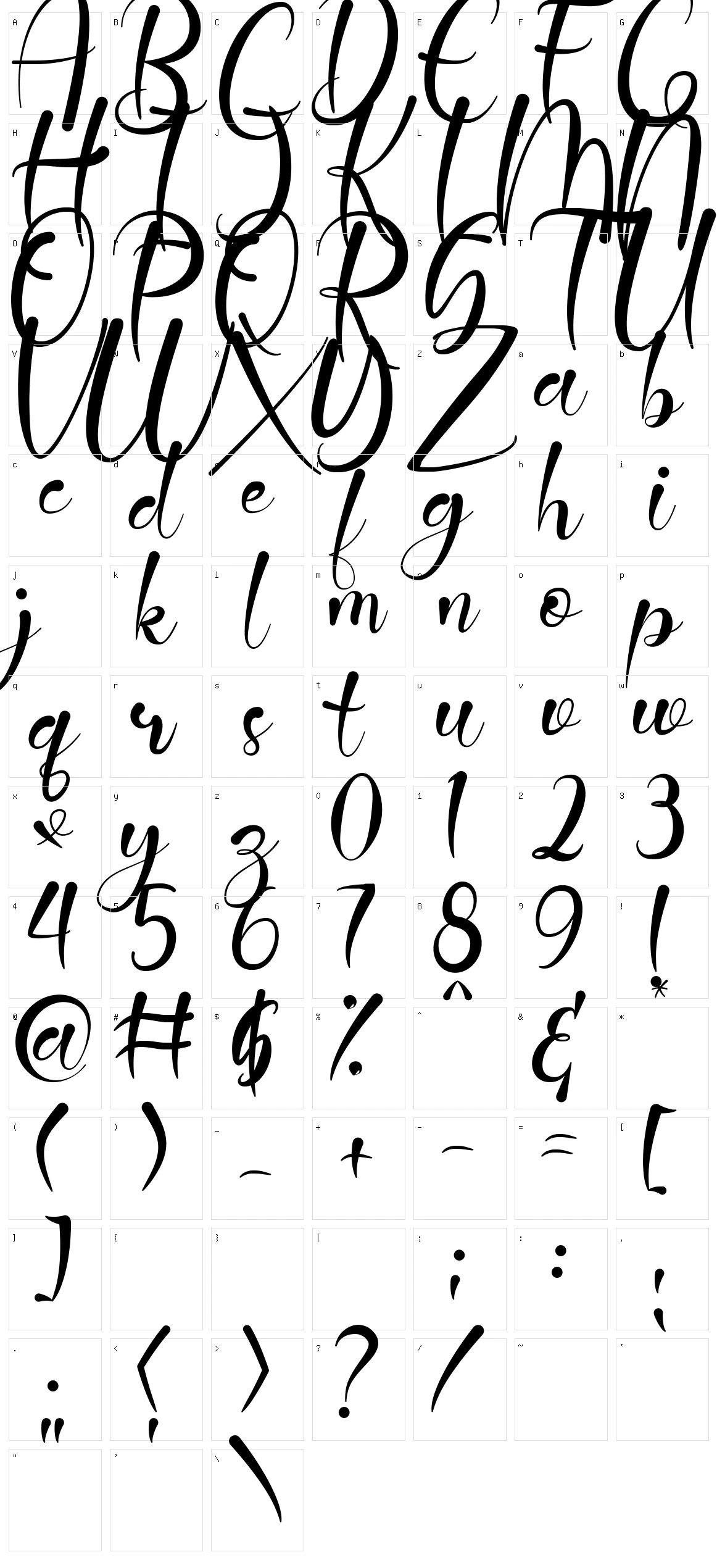
The free font Jattestor is carefully designed by Sabrcreative, showcasing a thoughtful balance of creativity and usability and falls under the Script font style. When you download the ZIP file, it contains only 54.43 KB of font files, making it lightweight and quick to download. Please review the license details below to understand permitted usage and distribution rights. If license information is not available, we recommend using this font for personal projects only or contacting the author directly for commercial usage permissions.